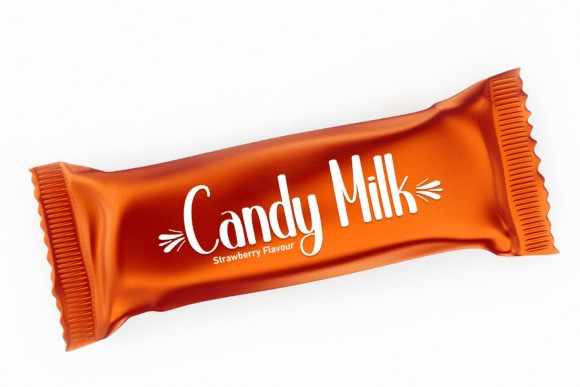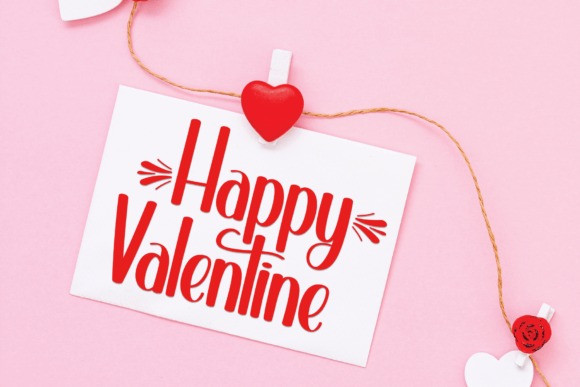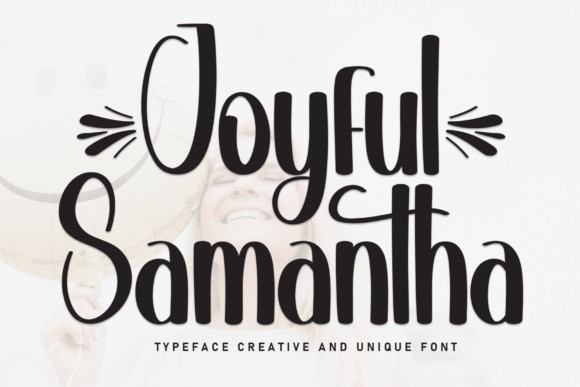
Joyful Samantha Font
Joyful Samantha Font is an enchanting handwritten font. This versatile script font has a wide spectrum of applications ranging from greeting cards to headlines and is guaranteed to add a romantic feel to your next project.